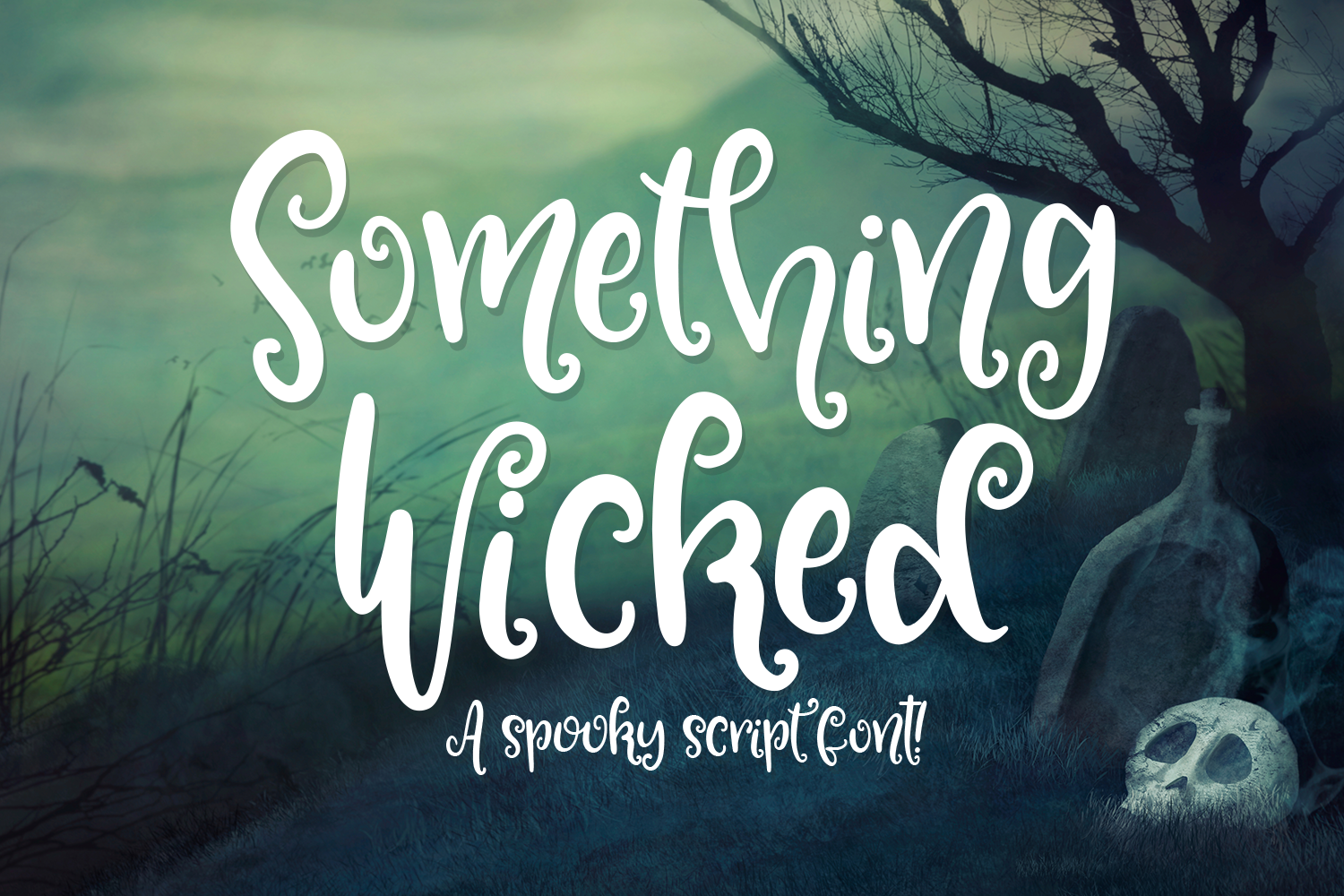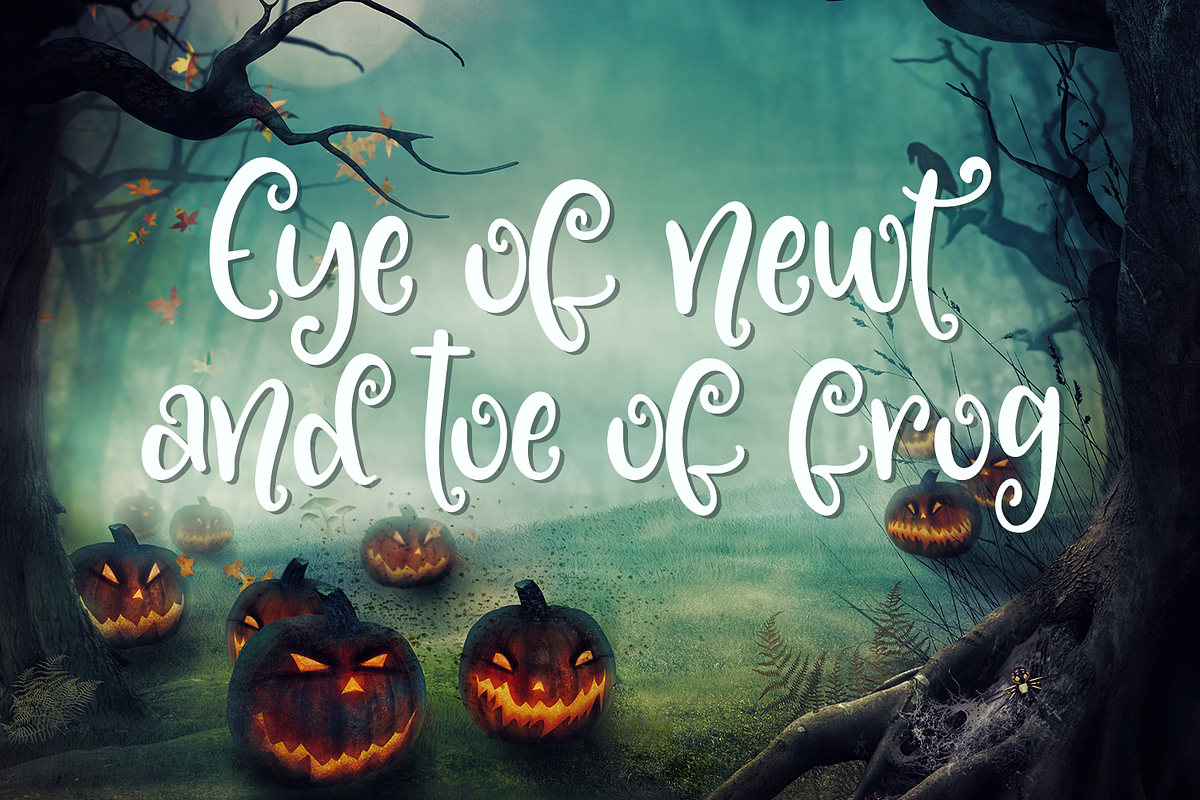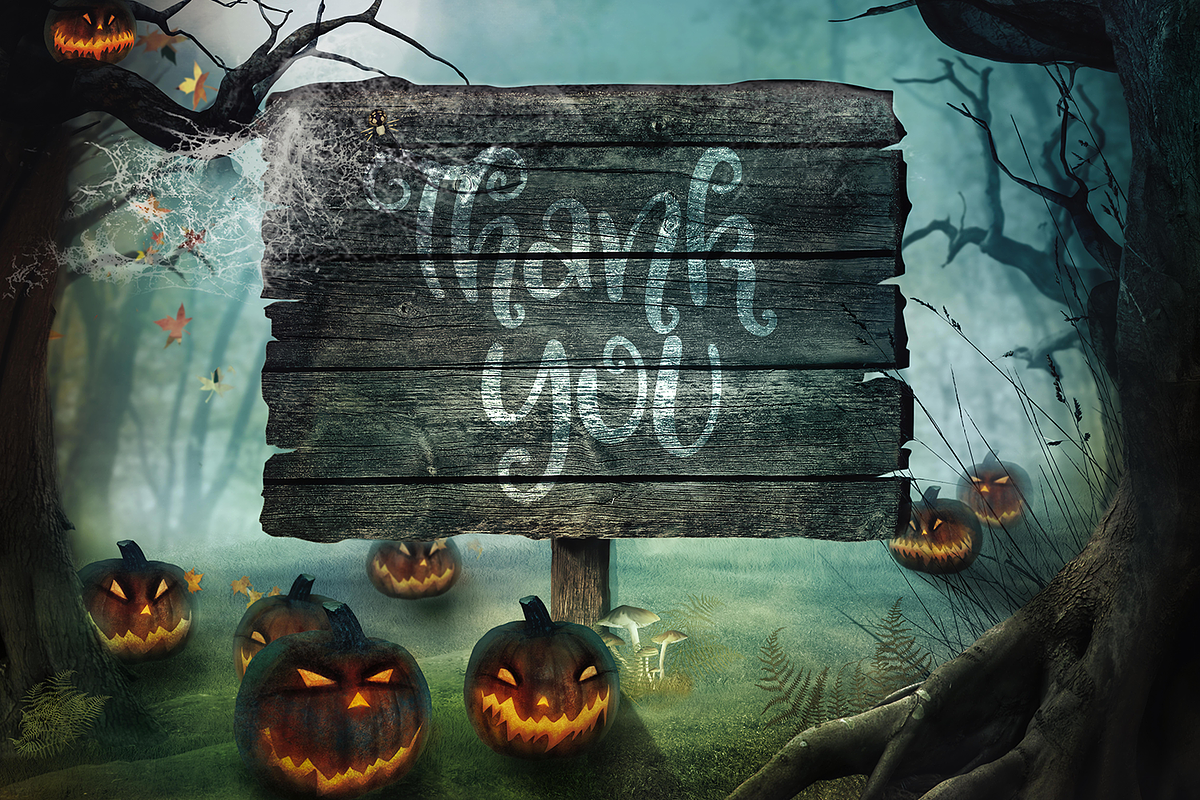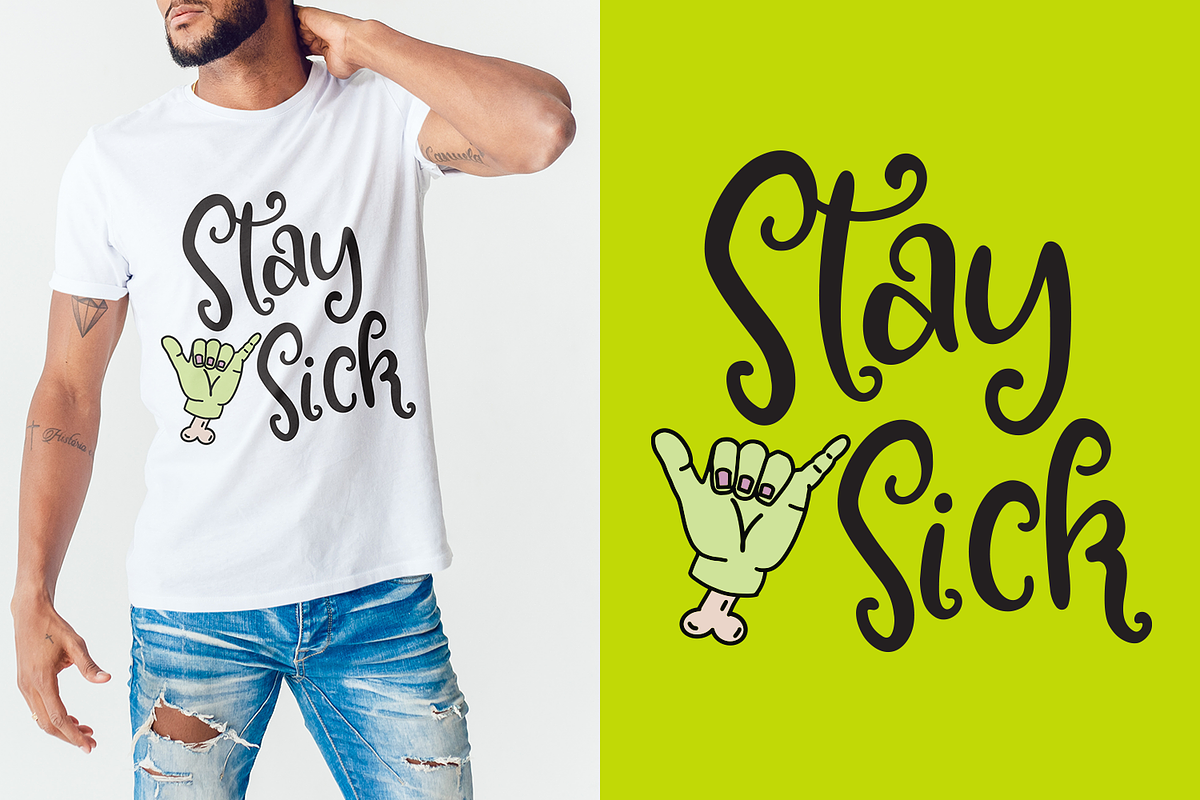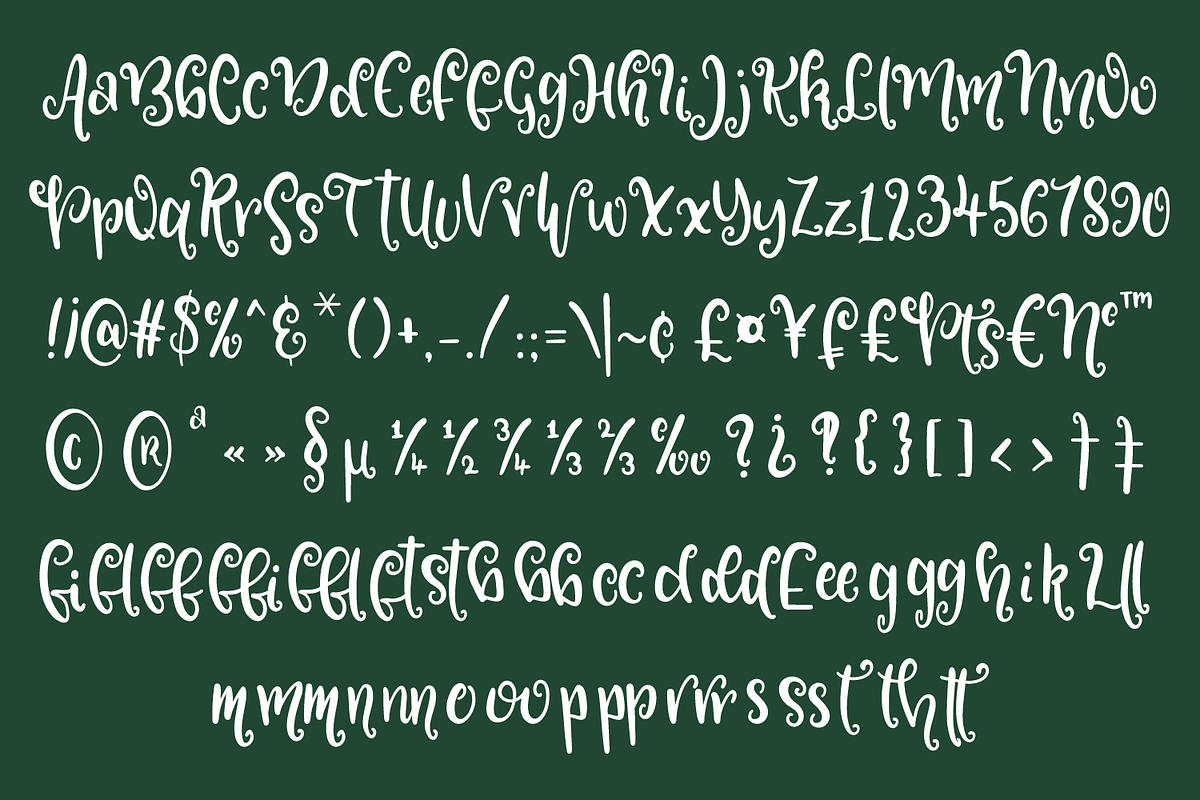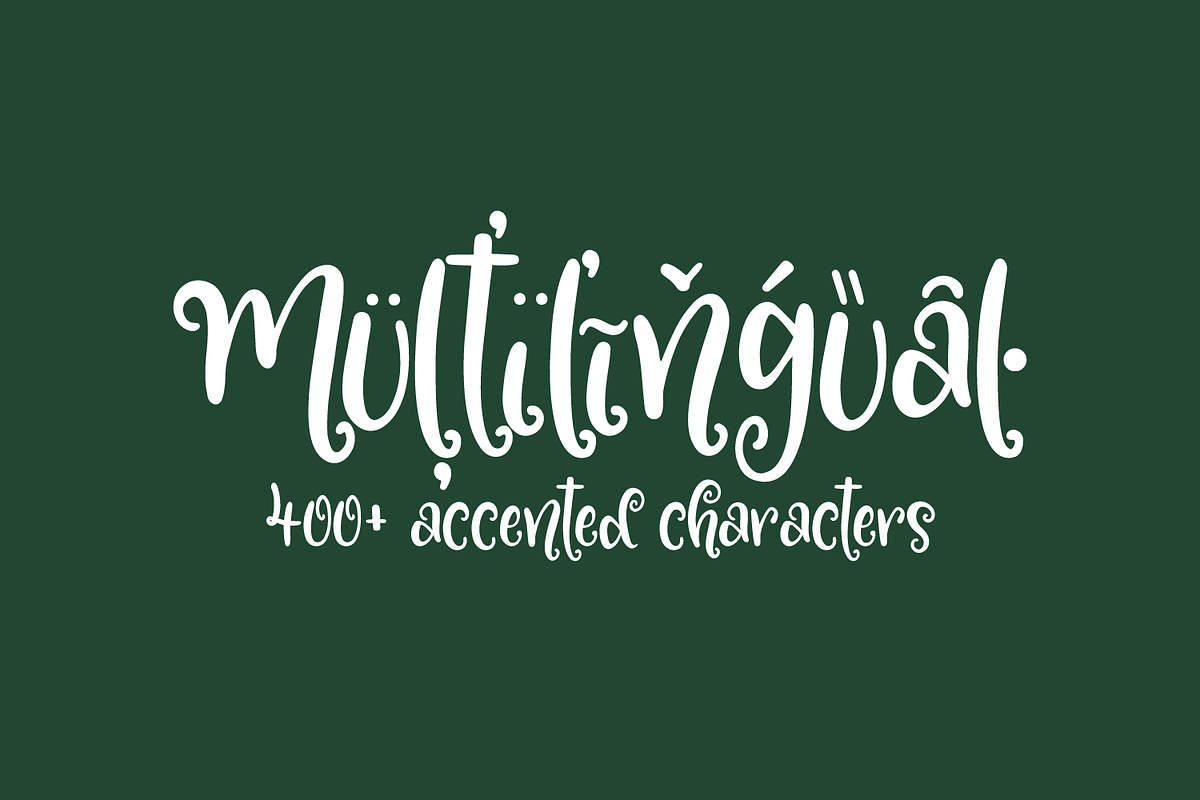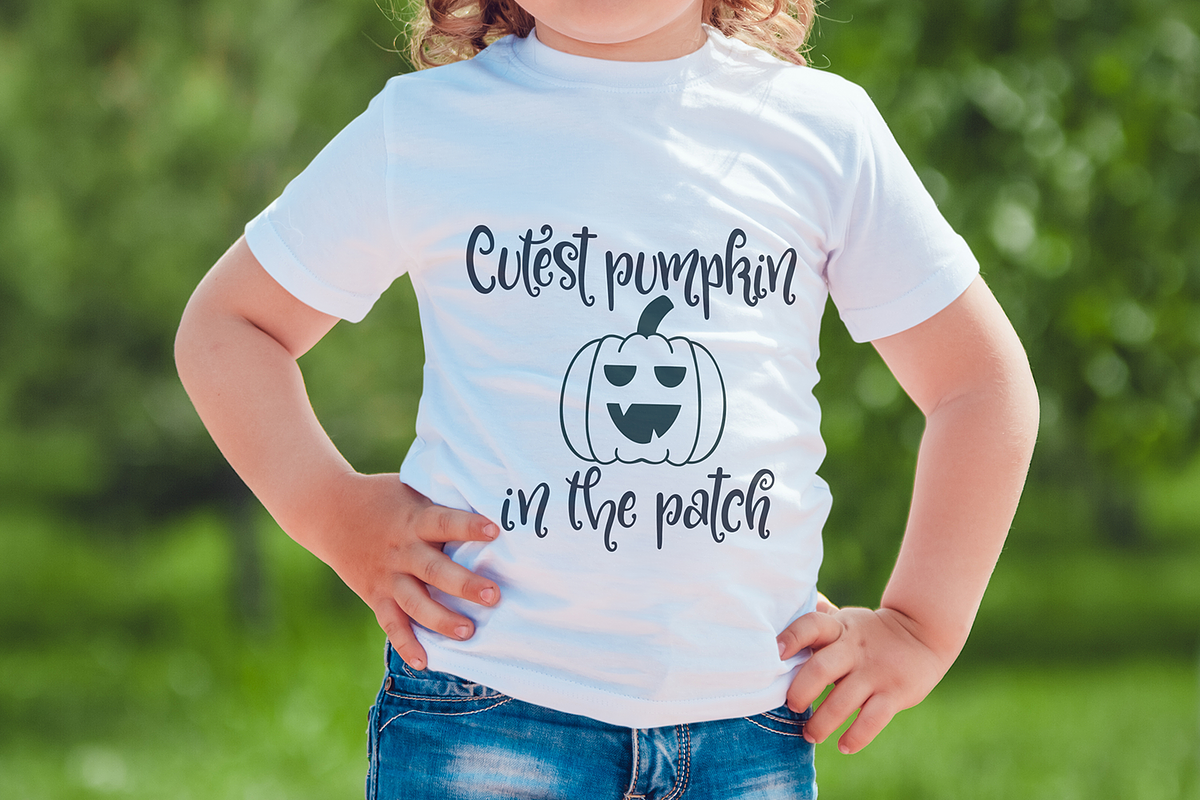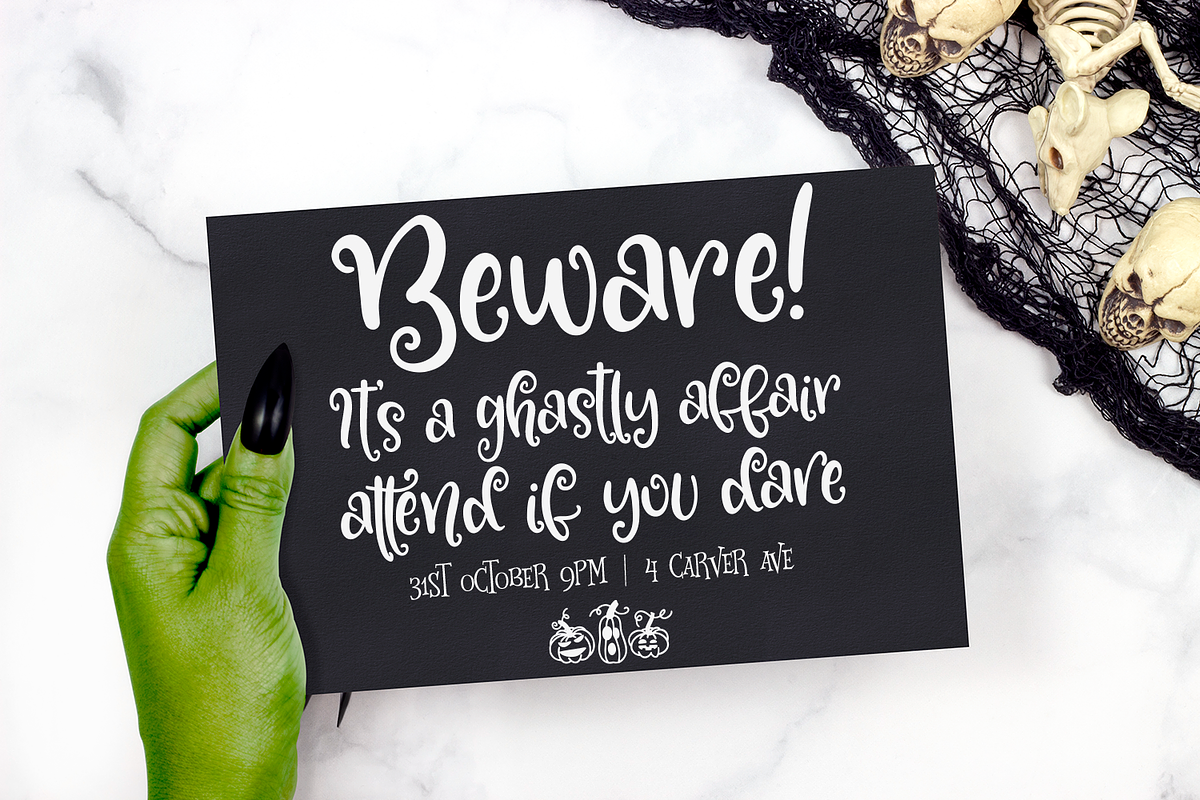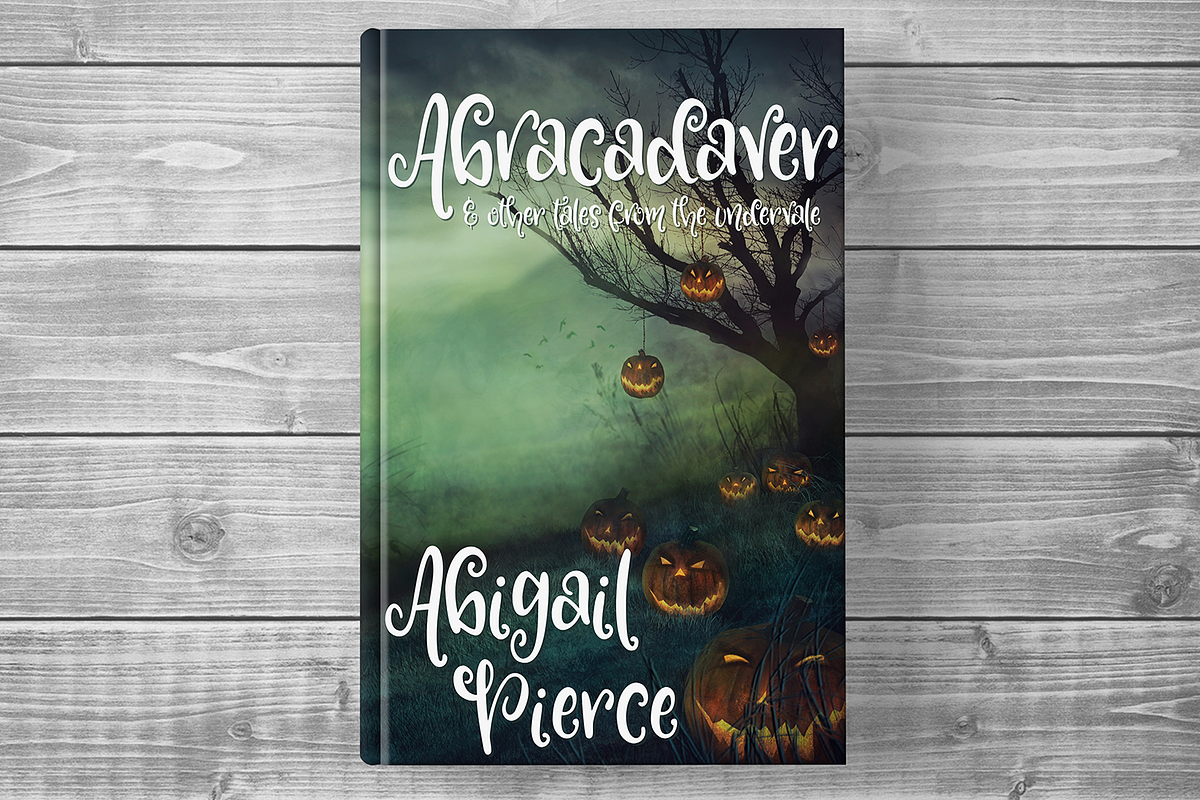
Something Wicked -spooky script font
By the pricking of my thumbs, something wicked this way comes!
Something Wicked is a spooky casual script font with quirky swirls and kooky curls. Use it on shuddersome shirts, insidious invitations, petrifying printables and so much more!
Included in this font are standard ligatures, stylistic alternates as well as discretionary ligatures so you can use Open Type to create stunning, unique typography.